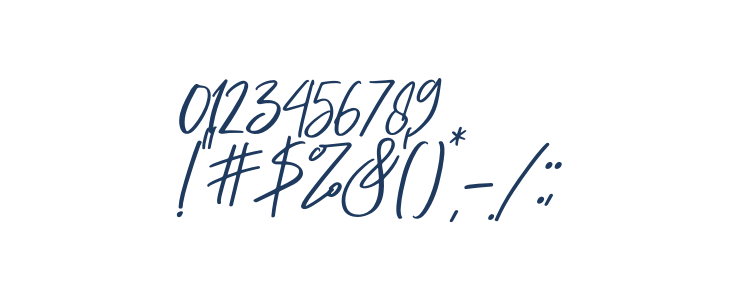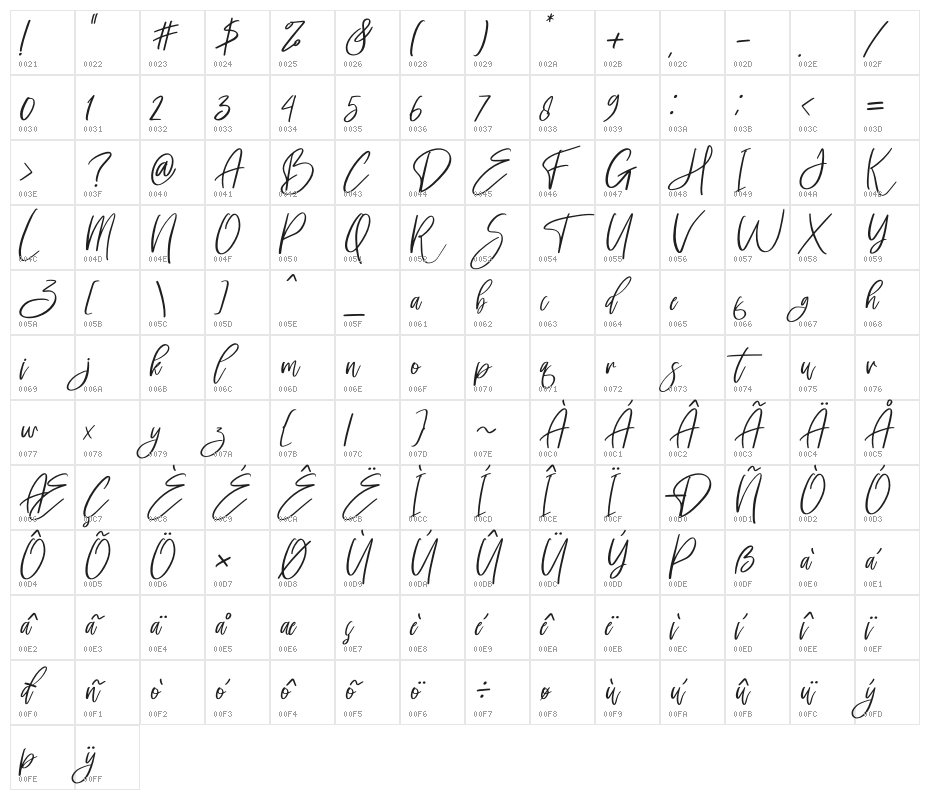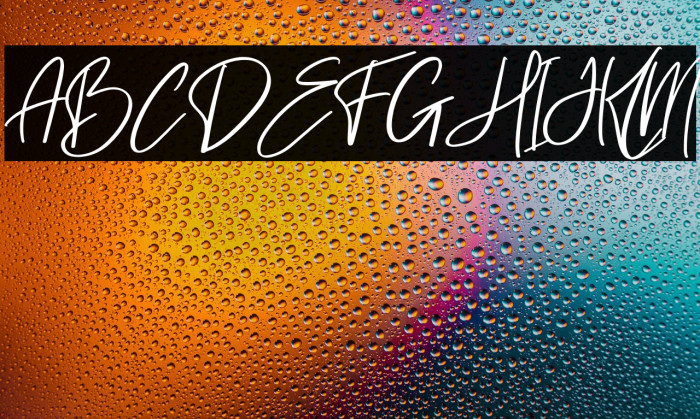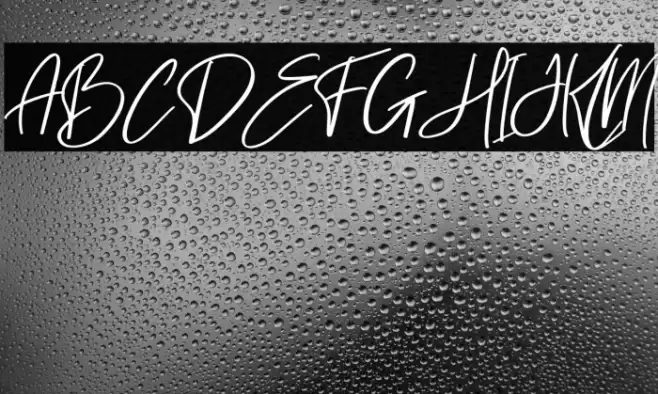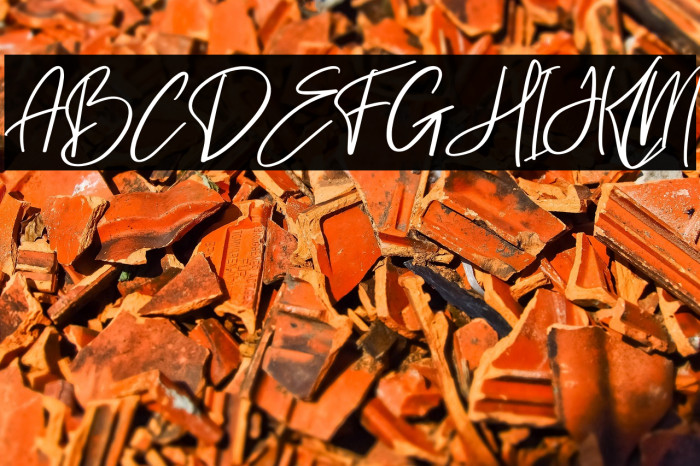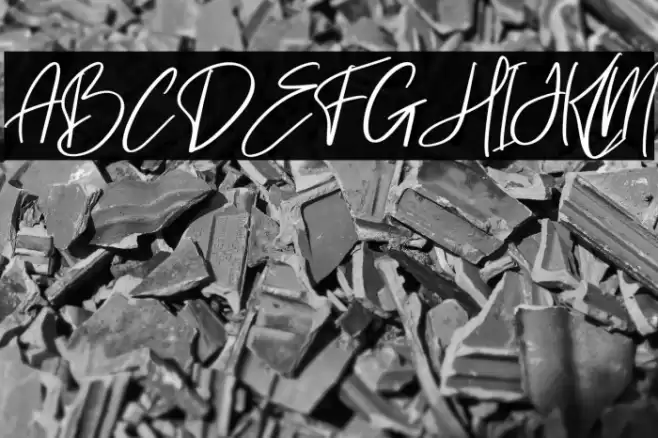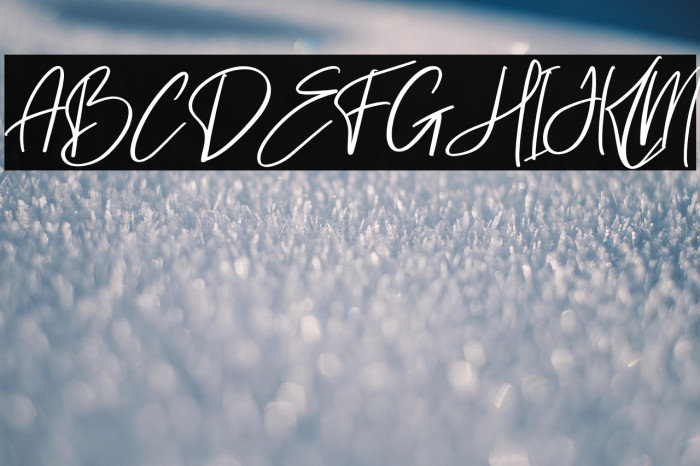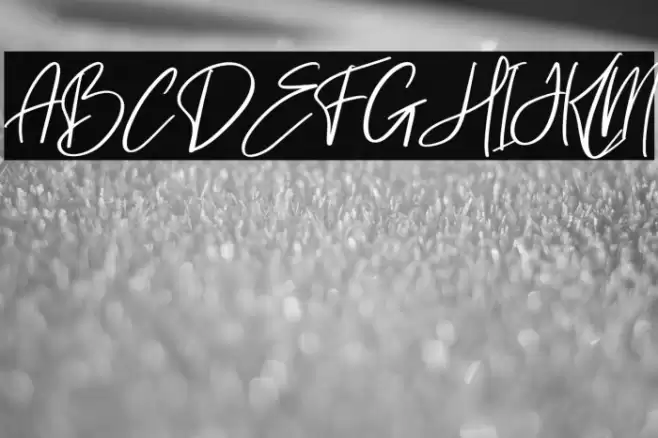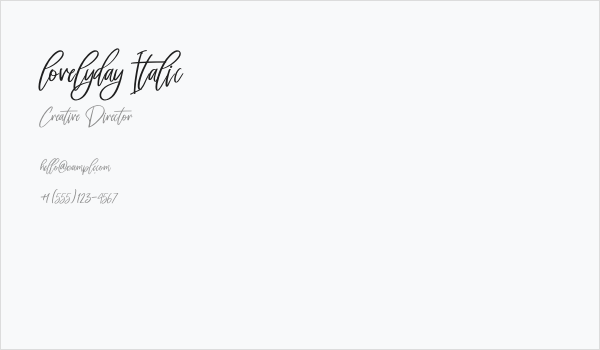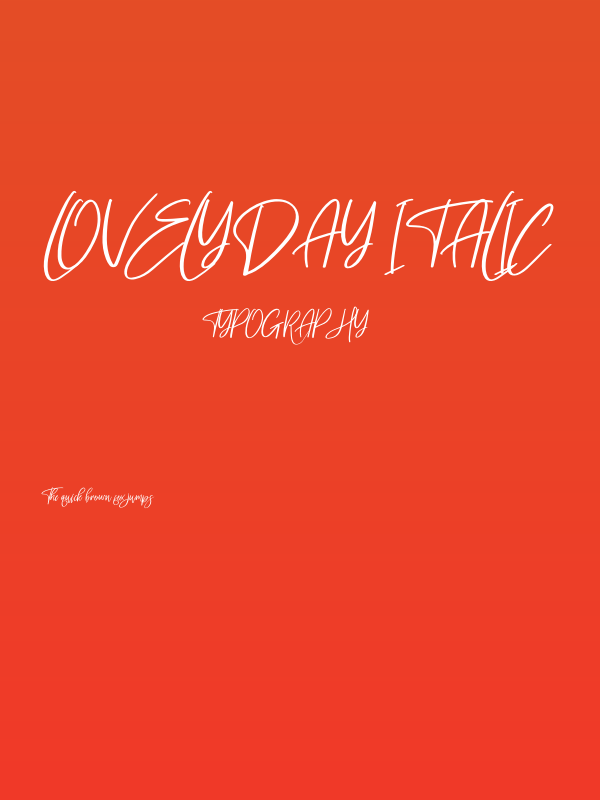
lovelyday Italic Font
lovelyday Italic Description
This font features a flowing, cursive style with a modern twist. The letters are elegantly connected, creating a sense of movement and fluidity. The uppercase letters are tall and slightly narrow, while the lowercase letters maintain a consistent height, adding to the harmonious appearance. The numerals are distinct and easy to read, complementing the overall aesthetic. Special characters are creatively integrated, enhancing the font's versatility. This font's italic nature adds a dynamic and stylish touch, making it suitable for various creative applications.